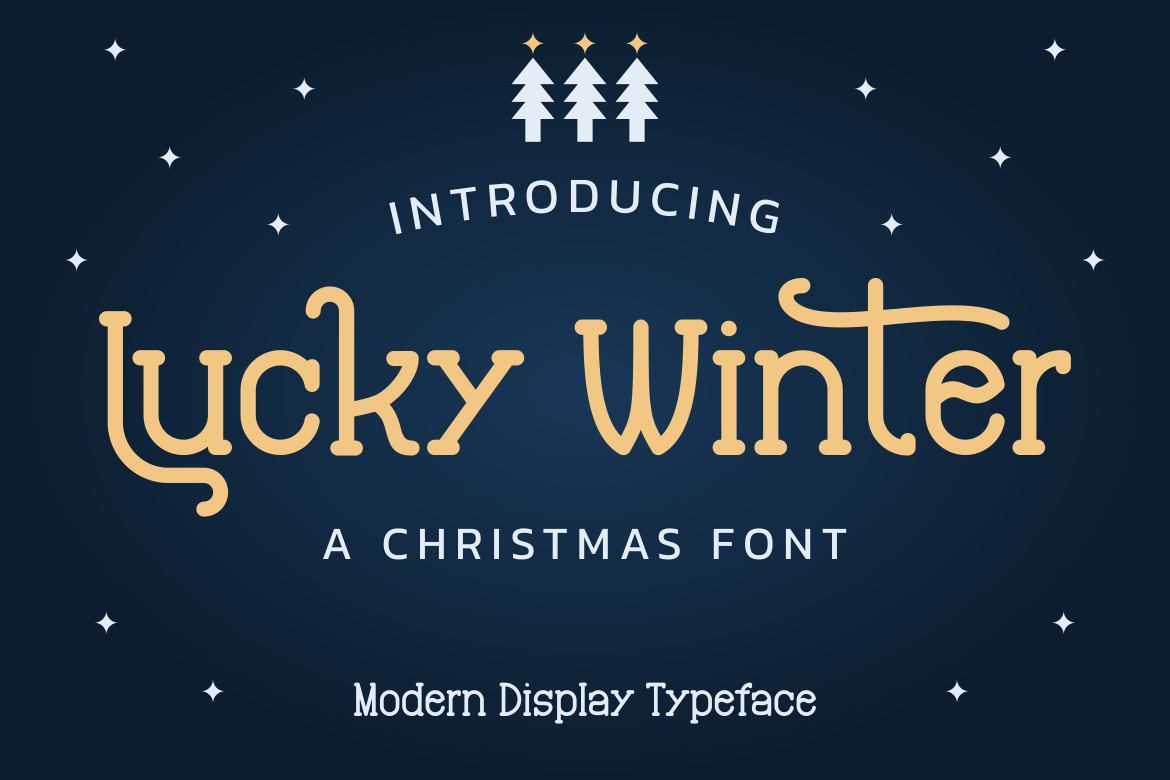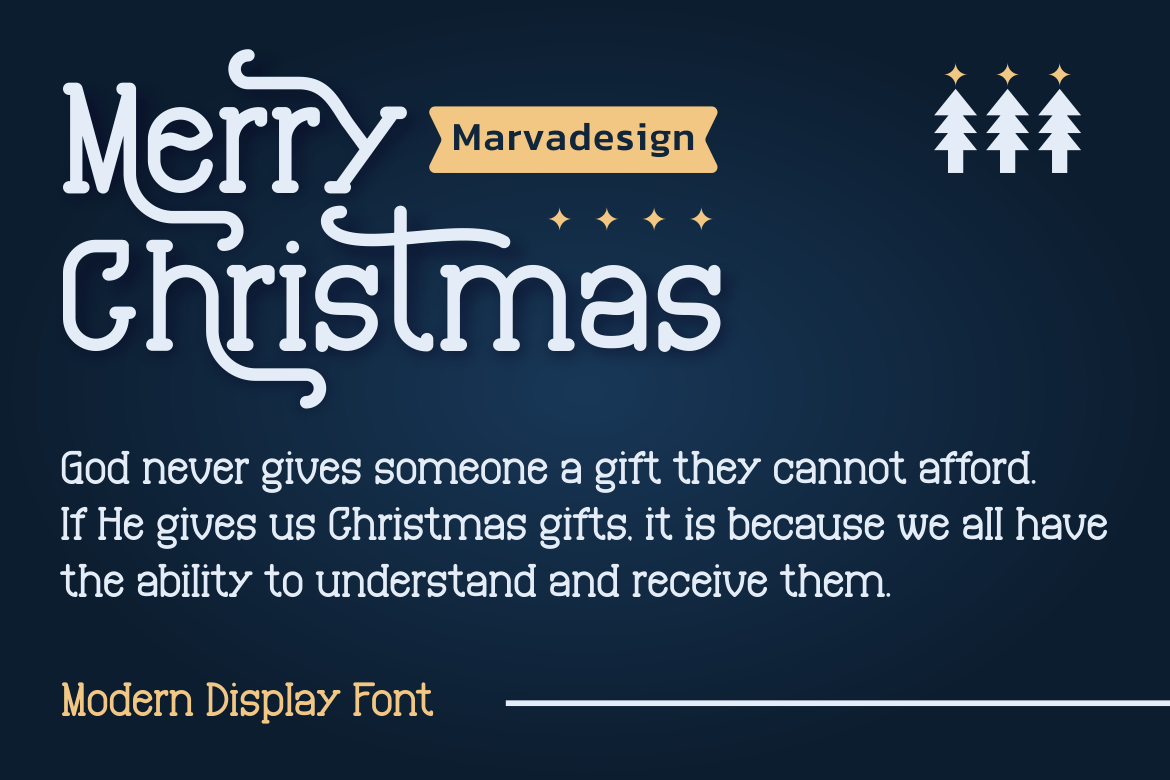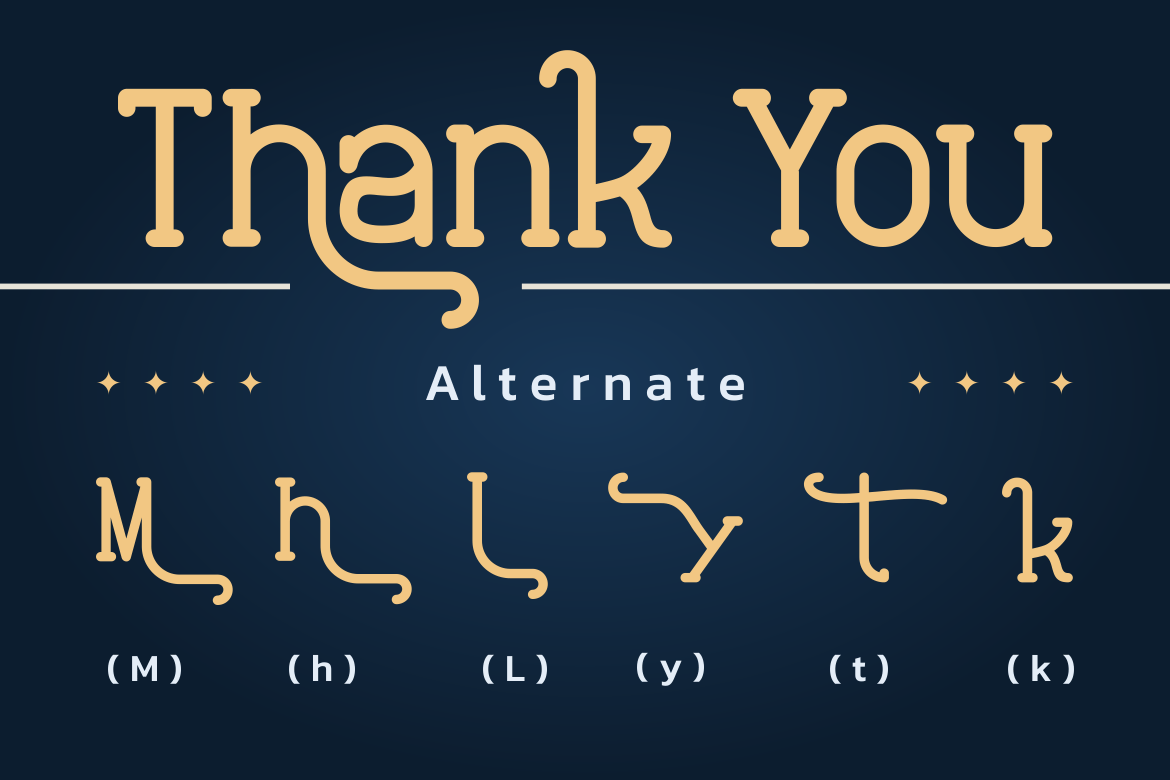
Lucky Winter – Christmas Font
Introducing our new product Lucky Winter Font – Modern Font
Lucky Winter Font** – Modern Font is a bold and authentic display font. The font is suitable for any branding project like logo, t-shirt printing, Product and many more. outstanding in a wide range of contexts.